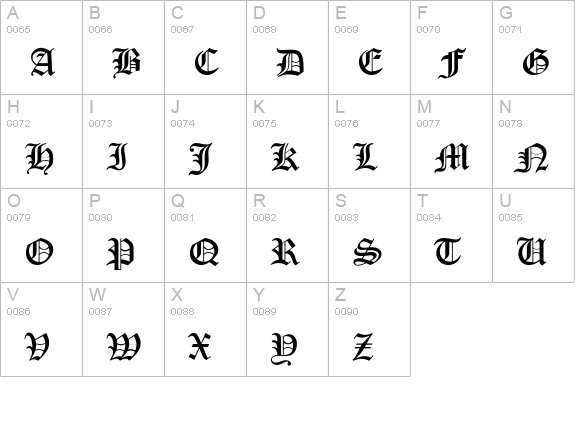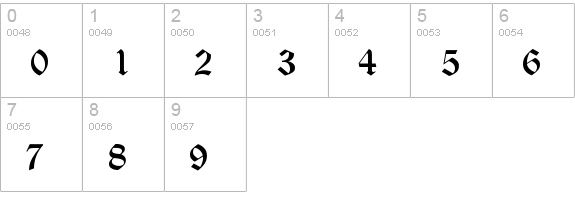
Canterbury Font Details
Canterbury font is a classic and elegant typeface that exudes sophistication and timelessness. Its gracefully flowing curves and sharp edges combine to create a perfect balance between tradition and modernity. With its versatile design, Canterbury font is suitable for various projects, including branding, invitations, posters, and more. The best part about Canterbury font is that it is available for free download at FontsMarket.com. This means that you can effortlessly add this stunning typeface to your collection without any cost. So why wait? Enhance your designs with the exquisite beauty of Canterbury font today!